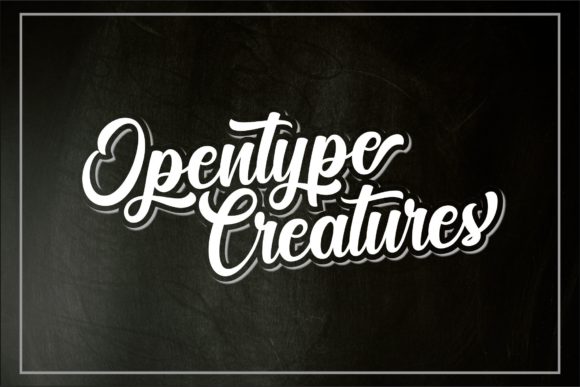
Lolyta Font
db-ku.com - Script & Handwritten -- Lolyta is a beautiful script font. Fall in love with its completely different and timeless style, and use it to create spectacular designs! This font was crafted to give your headlines and logotype projects a stylish touch. This font reads as strong, confident, and dynamic and can add tons of nostalgic character to your designs.